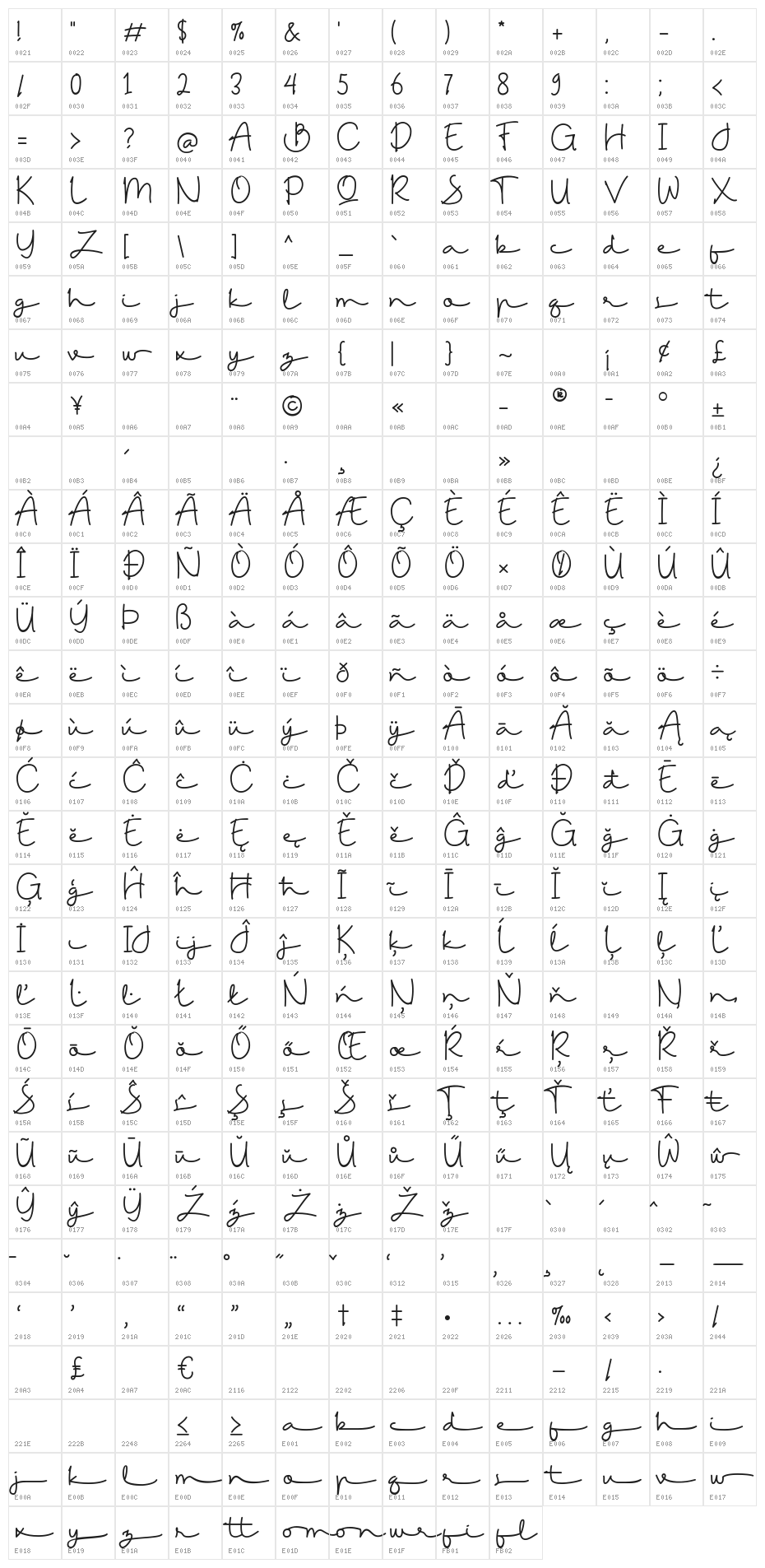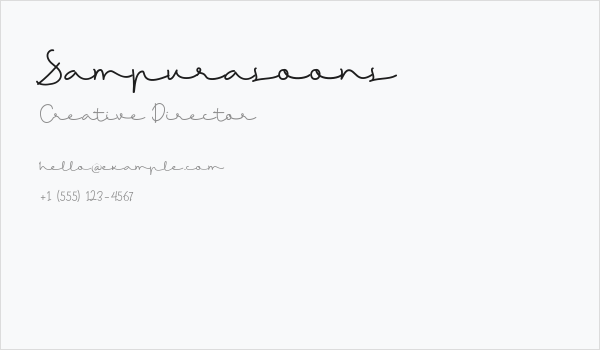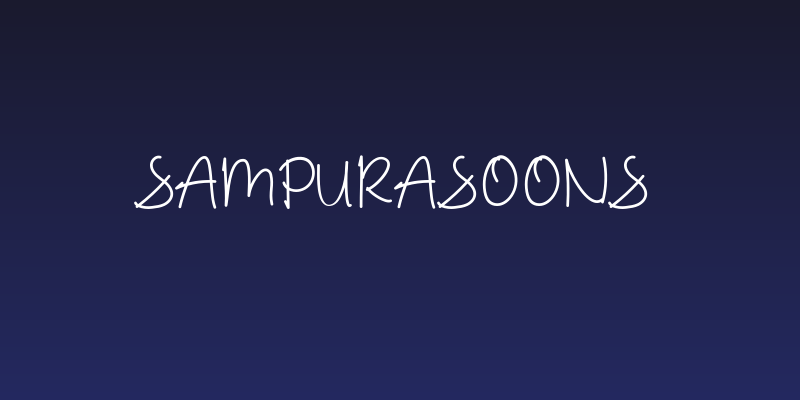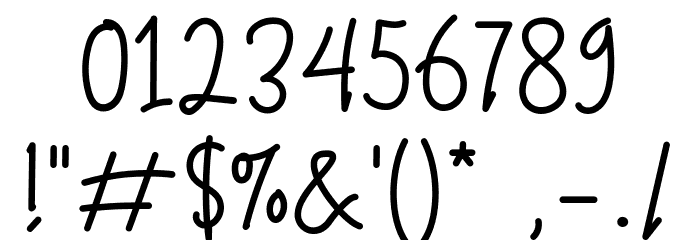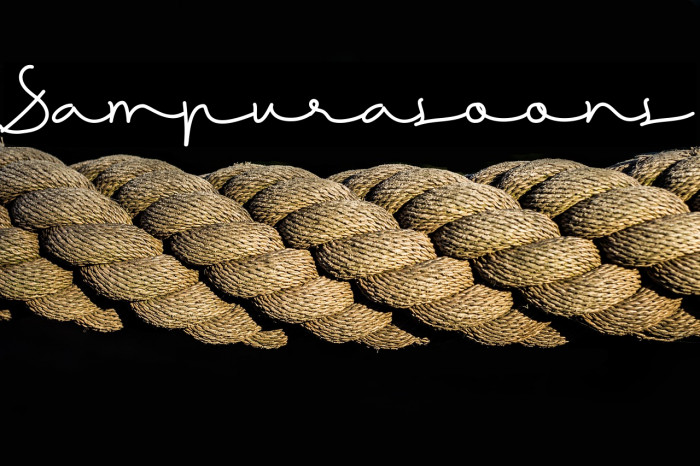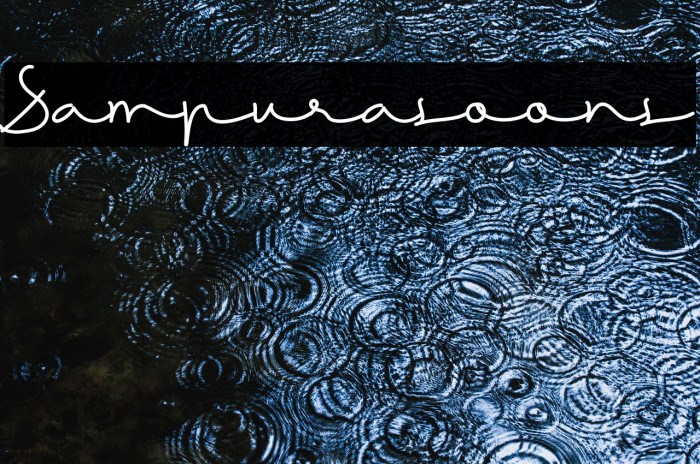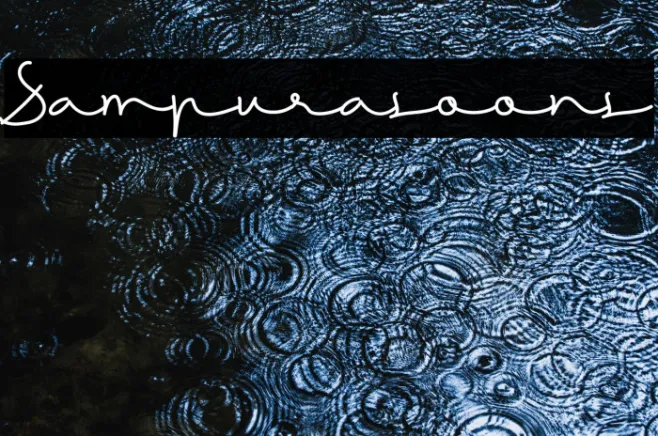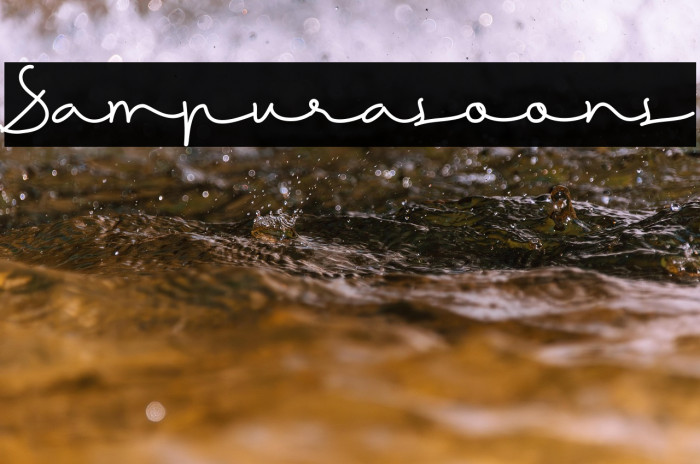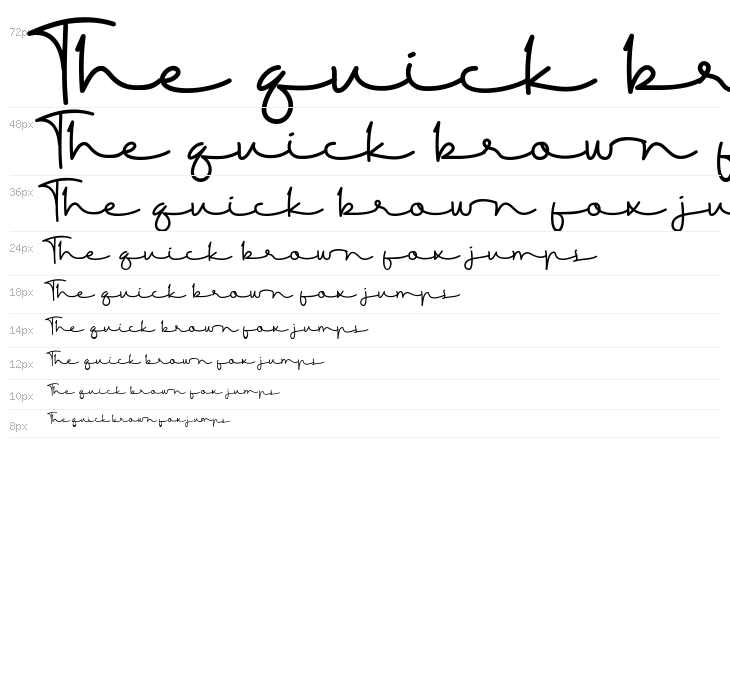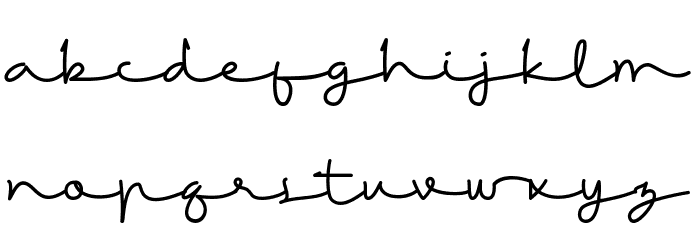
Sampurasoons Font
Sampurasoons Description
This font features a playful and casual handwritten style, characterized by its fluid and continuous strokes. The uppercase letters are bold and slightly irregular, giving a sense of spontaneity and creativity. The lowercase letters maintain a consistent flow, with some letters extending below the baseline, adding to the dynamic feel. Numbers are clear and legible, with a slight tilt that complements the overall style. Special characters are well-integrated, maintaining the same whimsical and informal aesthetic. This font is perfect for projects that require a personal touch or a relaxed, friendly vibe.
| Proposed Projects | Ideal for greeting cards, invitations, personal blogs, and creative branding projects. |